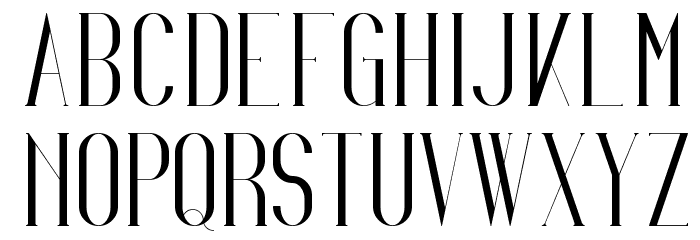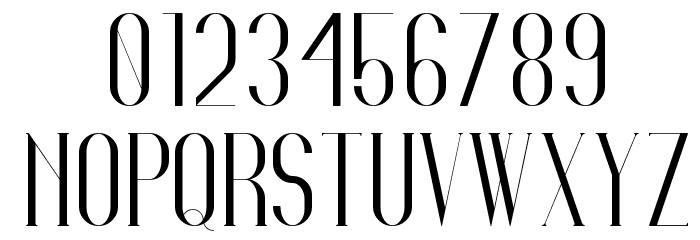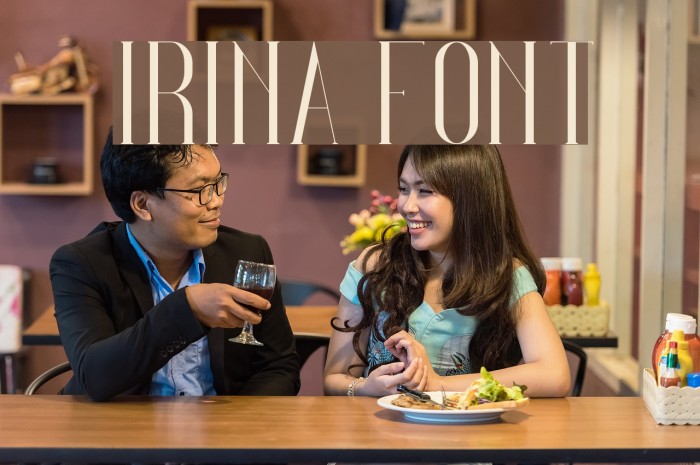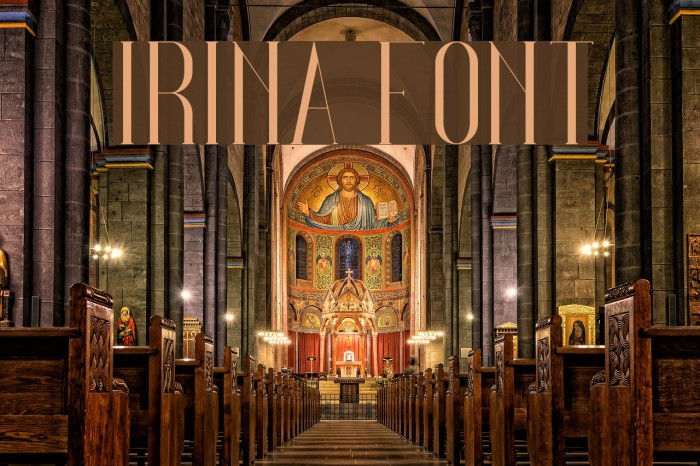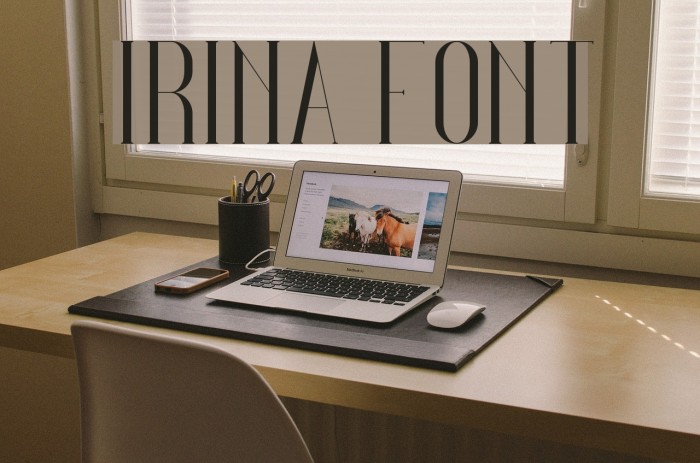
Irina Font
This font features a striking and elegant design with tall, narrow letterforms that exude sophistication. The characters have a high contrast between thick and thin strokes, giving them a refined and stylish appearance. The uppercase letters are particularly elongated, adding a sense of grandeur and formality. The lowercase letters maintain a consistent style, complementing the uppercase with their sleek and modern look. The numerals are distinct and align well with the overall aesthetic, making them suitable for a variety of applications. The special characters are designed with the same attention to detail, ensuring a cohesive and polished look across all text elements.
A sophisticated, high-contrast font with elongated, narrow letterforms.
- Proposed Projects: Ideal for luxury branding, editorial design, fashion magazines, and elegant invitations.
- Overall Style: Elegant and sophisticated
- Use Case: Headlines, Logos, Editorial design